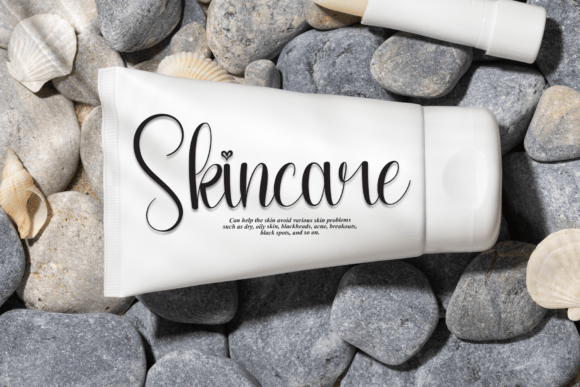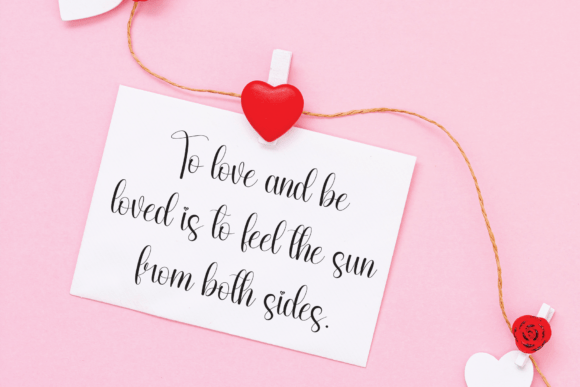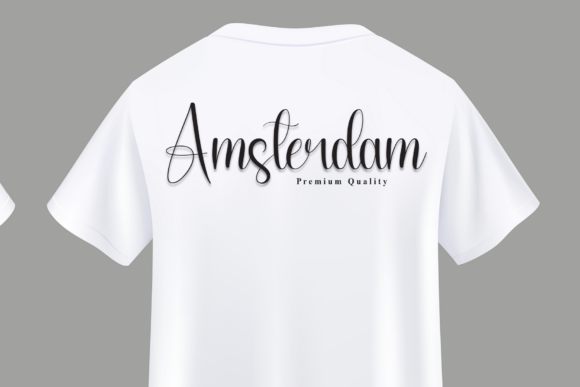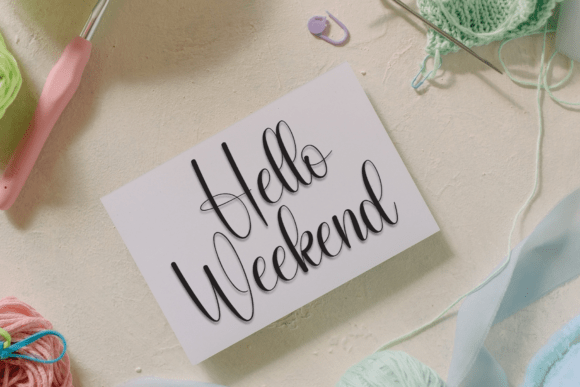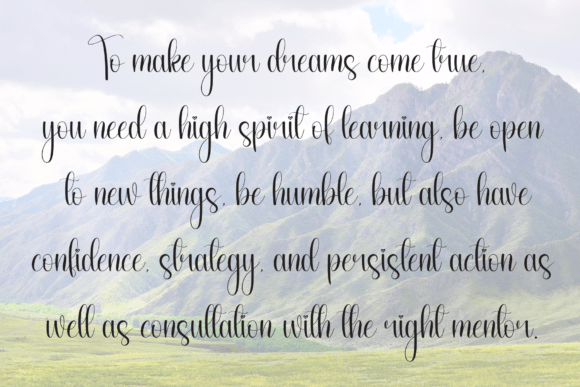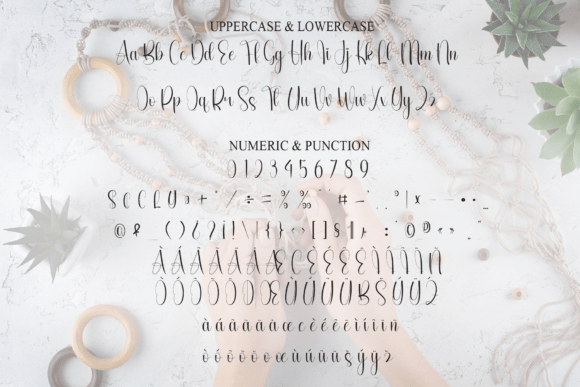
Introducing Handmade Font: Elevate Your Design with Elegance and Charm
In the world of typography, few fonts capture the essence of elegance and charm as effortlessly as Handmade. This stylish handwritten script font is designed to bring a touch of sophistication and personality to any design project. With its fluid, graceful strokes, Handmade is perfect for a variety of applications, including branding, invitations, and stationery.
The Beauty of Handmade Font
Handmade Font boasts smooth curves and a natural flow that creates a timeless, refined look. Its fluid strokes exude a sense of elegance, making it an ideal choice for designers and crafters looking to add a personal touch to their work. Whether you’re creating a brand identity, designing wedding invitations, or crafting bespoke stationery, Handmade Font is sure to impress.
Key Features of Handmade Font
- Fluid, Graceful Strokes: Handmade Font features smooth, flowing strokes that give it a natural, handwritten feel.
- Elegant and Charming: The font’s elegant curves and refined look make it perfect for designs that require a touch of sophistication.
- Versatile: Handmade Font is suitable for a wide range of applications, including branding, invitations, stationery, and more.
- Timeless Design: The font’s classic look ensures that it will remain stylish and relevant for years to come.
Uses for Handmade Font
Handmade Font is incredibly versatile, making it a valuable addition to any designer’s toolkit. Here are some of the many ways you can use Handmade Font:
Branding
Establish a strong brand identity with Handmade Font. Its elegant, refined look makes it perfect for logos, business cards, and other marketing materials.
Invitations and Stationery
Add a touch of sophistication to your invitations, wedding cards, and stationery with Handmade Font. Its fluid strokes and natural flow create a beautiful, personal look that’s sure to impress.
Digital Design
Handmade Font is also suitable for digital design projects, such as social media graphics, blog headers, and website titles. Its elegant look will help you create a cohesive brand identity across all your digital platforms.
Tips for Using Handmade Font
To get the most out of Handmade Font, here are a few tips to keep in mind:
- Use it sparingly: While Handmade Font is beautiful, it’s best used sparingly to avoid overwhelming the design. Use it for headings, titles, or key messages to create a focal point.
- Pair it with a sans-serif font: For body text, pair Handmade Font with a clean sans-serif font to create a beautiful contrast.
- Experiment with colors: Handmade Font looks great in a variety of colors. Experiment with different shades and combinations to find the perfect look for your design.
Handmade Font is a beautiful, elegant script font that’s perfect for designers and crafters looking to add a touch of sophistication to their work. With its fluid strokes, natural flow, and timeless design, it’s suitable for a wide range of applications, from branding and invitations to stationery and digital design. Whether you’re creating a brand identity or crafting bespoke stationery, Handmade Font is sure to impress.